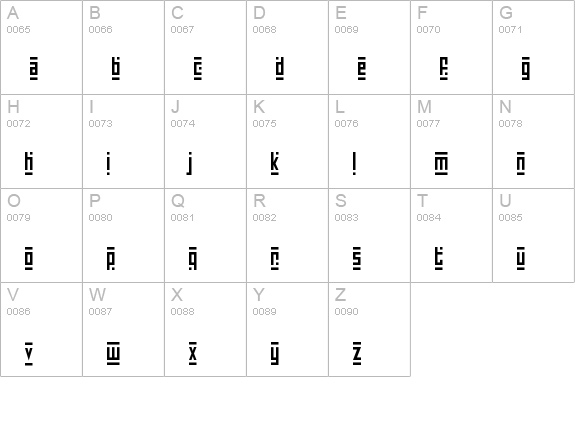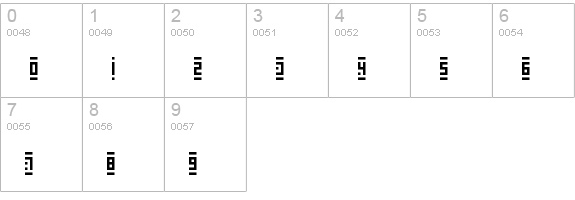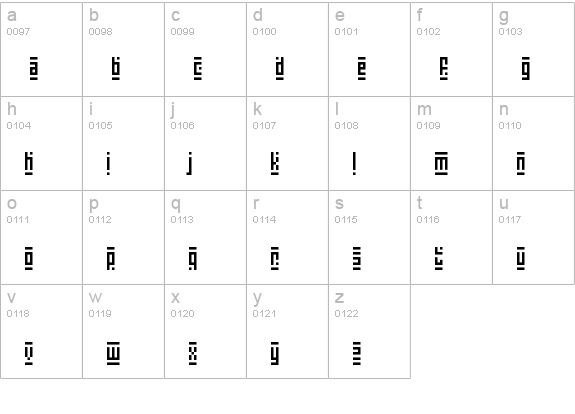
Super Skinny Pixel Bricks Font Details
Super Skinny Pixel Bricks is a free for personal use font in the Fancy > Pixel category, designed by Darrell Flood. It has been downloaded 157 times and is available for Windows, Mac and Linux.
Super Skinny Pixel Bricks font is a sleek and modern typeface that brings a unique and edgy touch to any design project. With its thin and pixelated appearance, this font is perfect for creating a contemporary and eye-catching look. The clean lines and sharp edges of Super Skinny Pixel Bricks make it ideal for various design applications, from branding to web design to social media graphics.